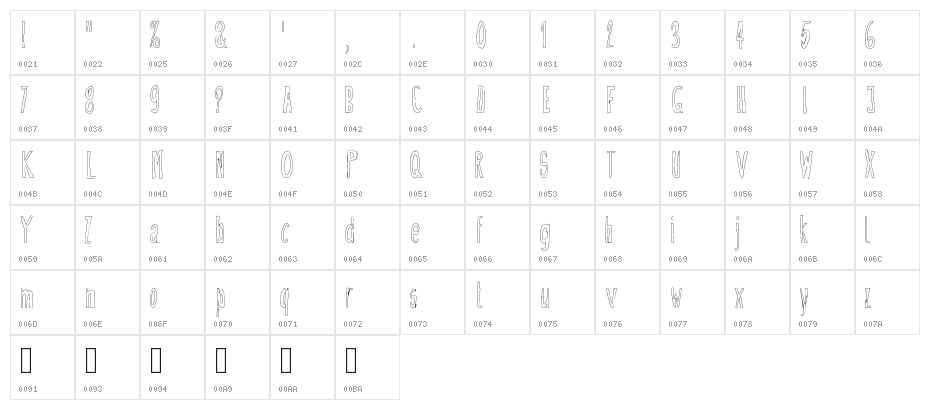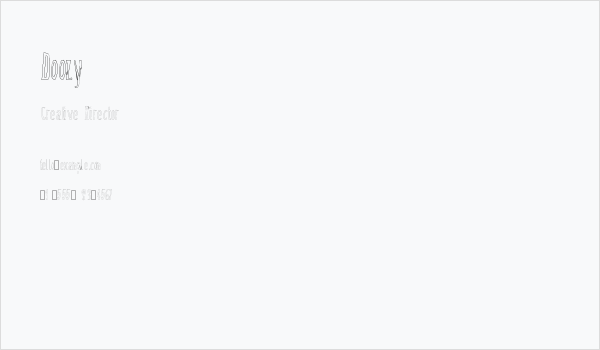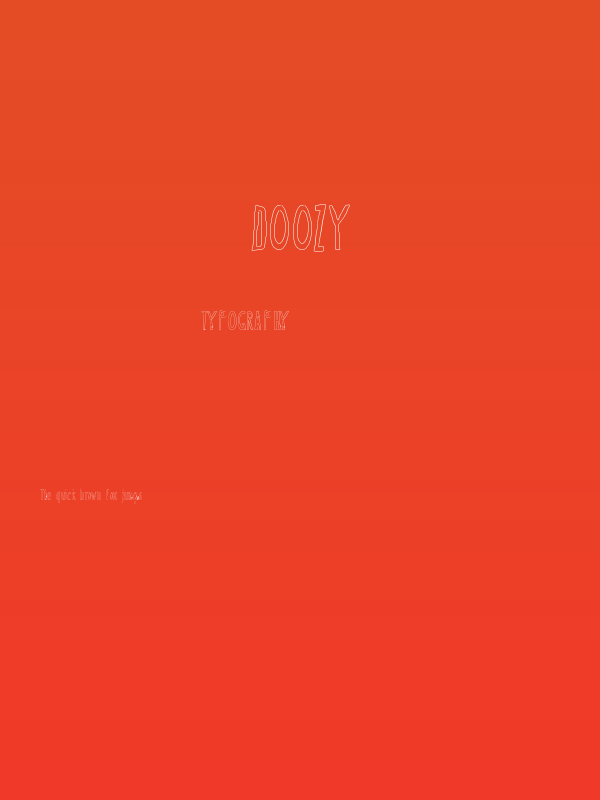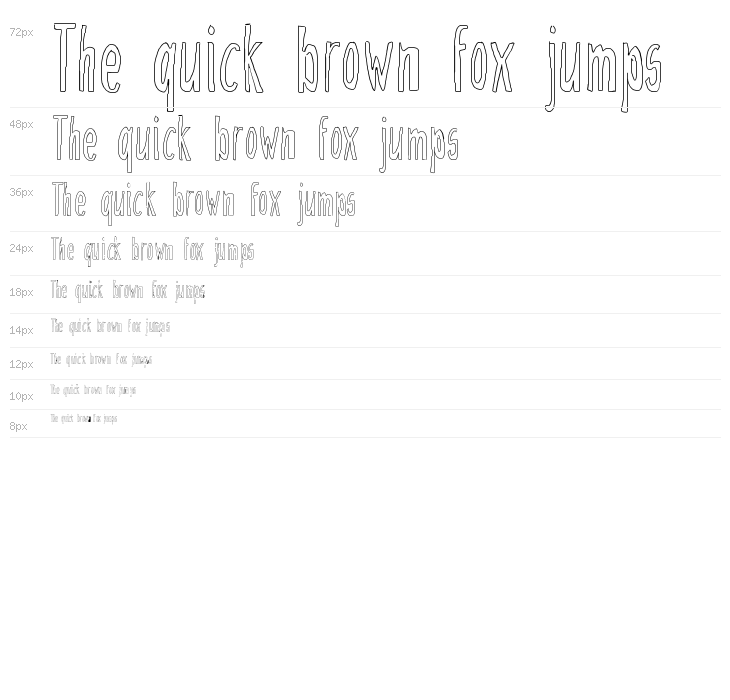
Doozy Font
Doozy Description
This font features a playful and quirky design, characterized by its uneven and wavy lines that give it a hand-drawn appearance. The uppercase letters are tall and narrow, with a slight tilt that adds to the whimsical feel. The lowercase letters maintain this playful style, with some characters like 'e' and 'g' having unique, exaggerated forms. The numbers follow the same design principles, ensuring consistency across the font. Special characters are included, matching the overall aesthetic. This font is ideal for projects that require a fun and informal touch.
| Overall Style | Whimsical, Playful, Hand-drawn |
| Proposed Projects | Great for children's books, playful branding, greeting cards, and creative posters. |